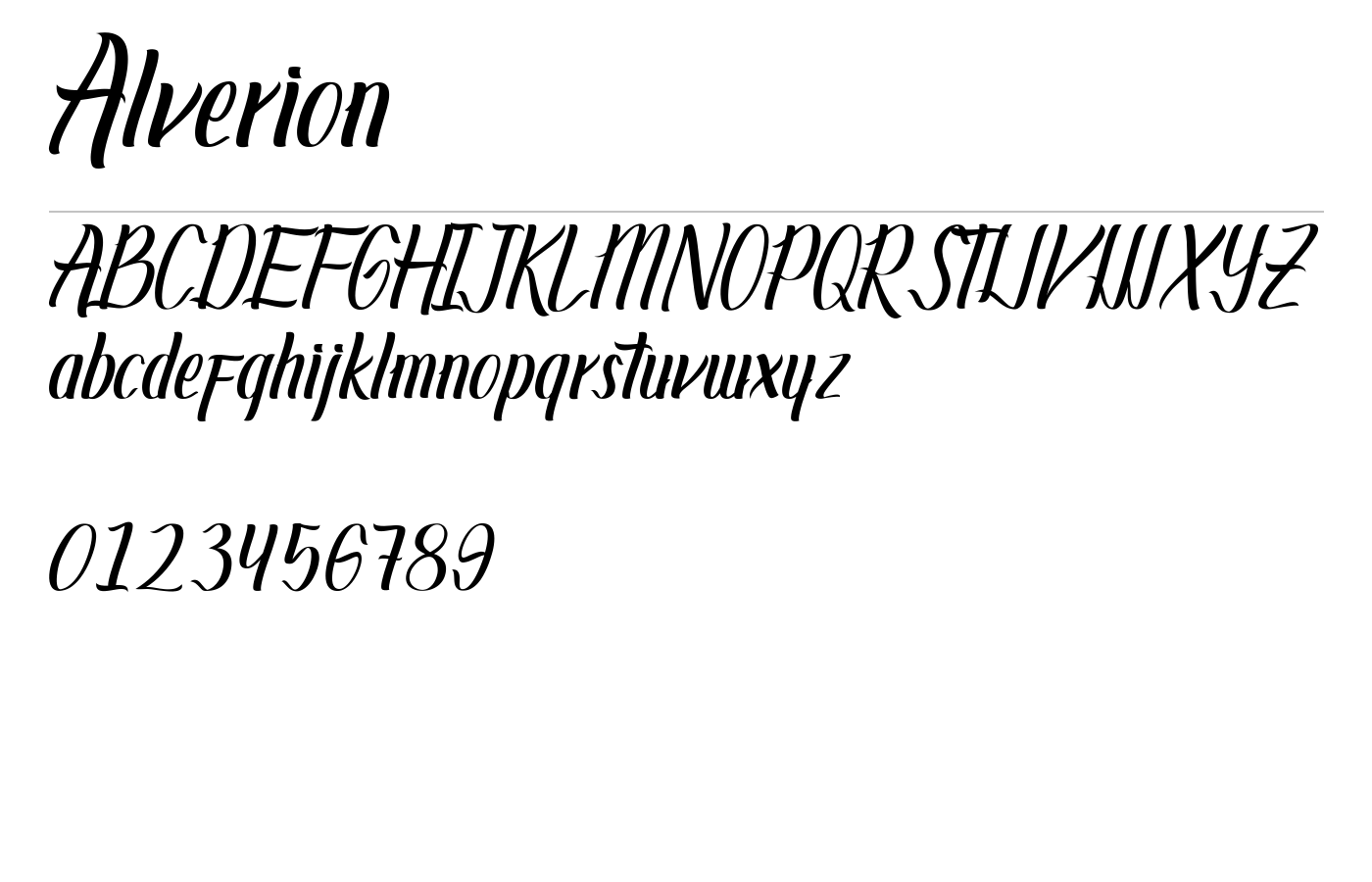
Alverion is an elegant, slender script font with a modern calligraphic style, featuring smooth, flowing strokes and a distinctive slant that adds dynamic movement. Its graceful letterforms with moderate contrast and unique shapes make it ideal for stylish branding, invitations, and headlines where a sophisticated yet approachable flair is desired. This font works beautifully in designs that need a personal, artistic touch without sacrificing readability.
Alverion Font
About Alverion Font
| Font family | Alverion Font |
| Designer | Wallby Hand |